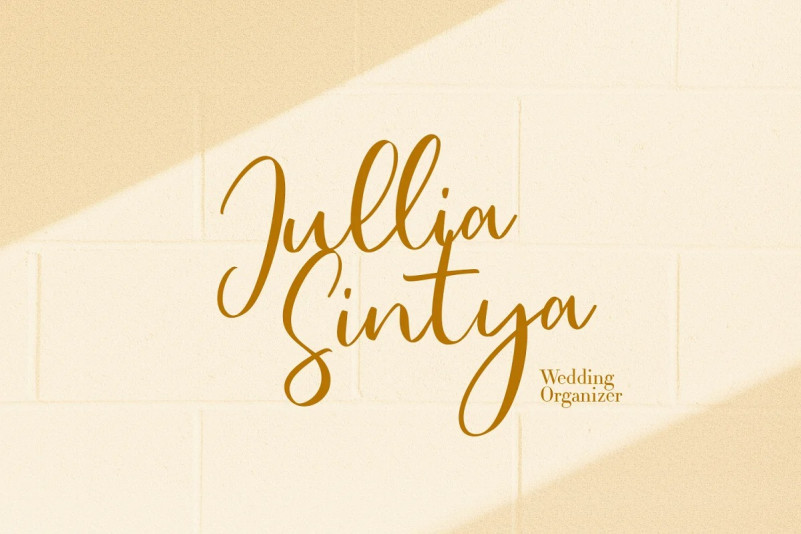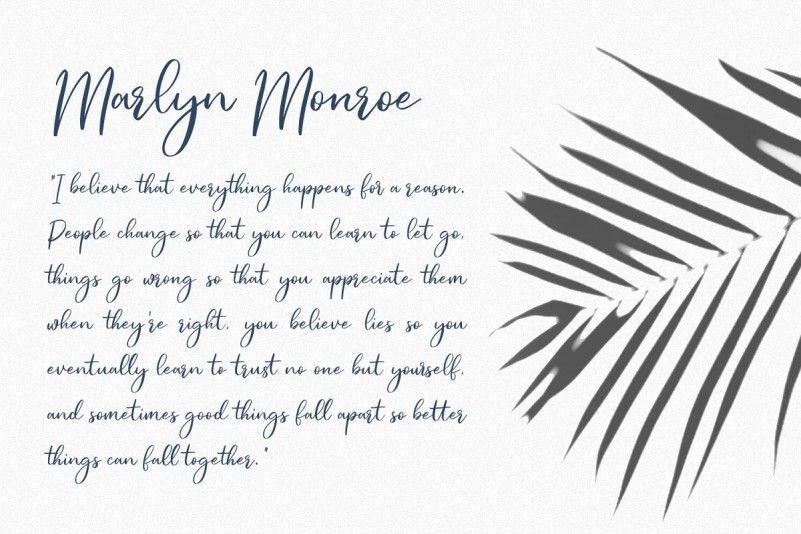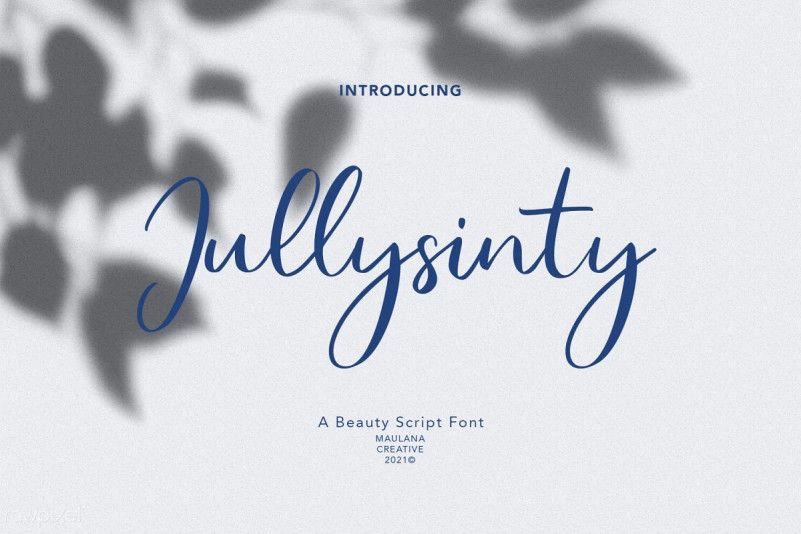
Jullysinty Script Font
Jullysiinty is casual script font, with high contrast light stroke, slant and fun character. It has Opentype features ligatures of character, To give you an extra creative work. Jullysiinty script font support multilingual more than 100+ language. This font is good for logo design, Social media, Movie Titles, Books Titles, a short text even a long text letter and good for your secondary text font with sans or serif. Make a stunning work with Jullysiinty font.